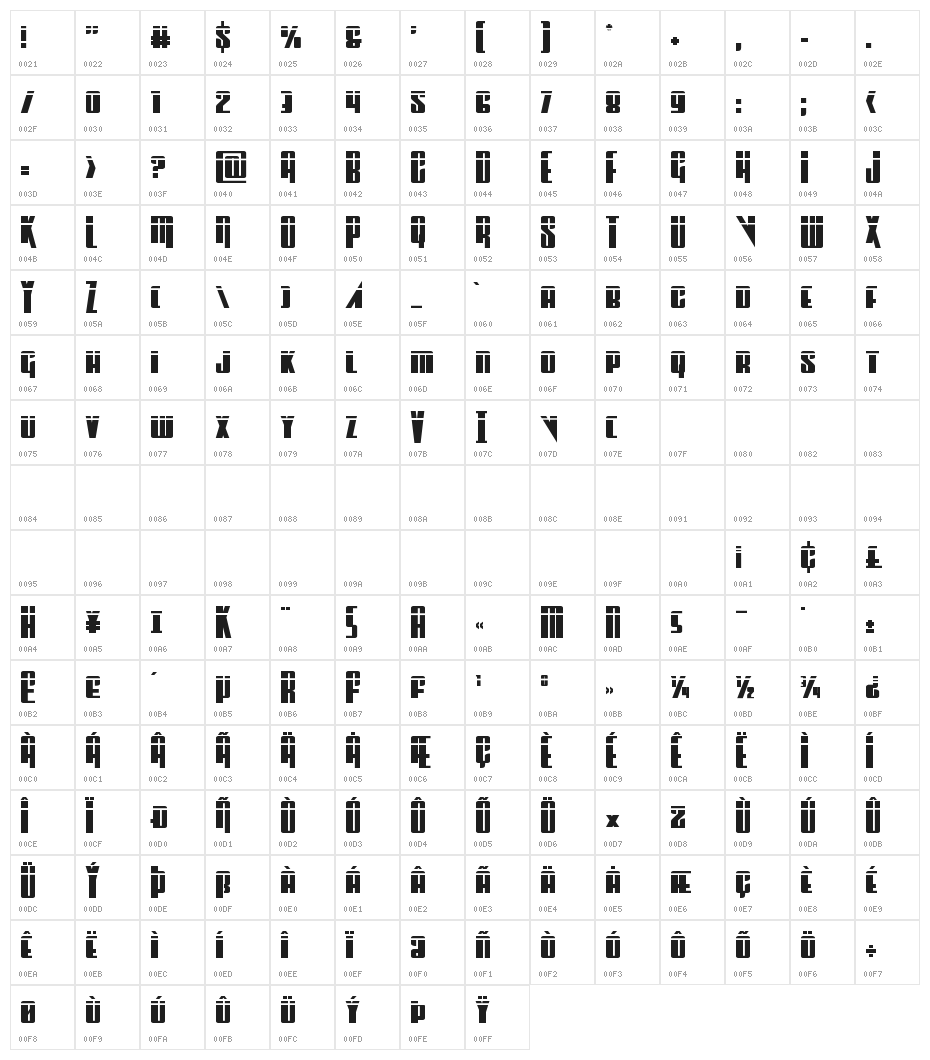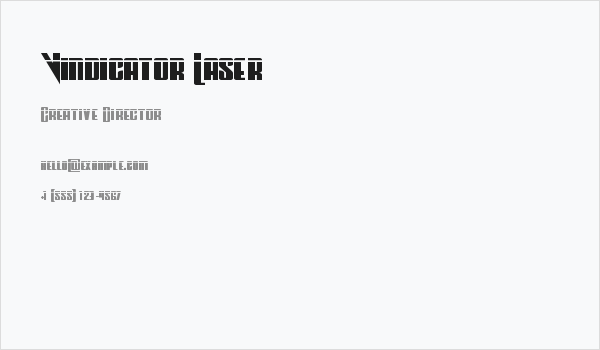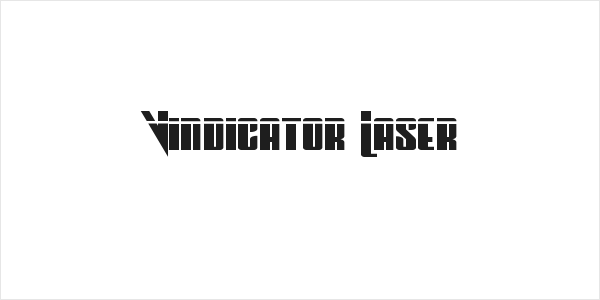
Vindicator Laser Font
Vindicator Laser Description
This font features a bold, futuristic design with sharp angles and a distinct geometric style. The uppercase letters are particularly striking, with a blocky appearance that suggests strength and modernity. The lowercase letters maintain the same boldness, ensuring consistency across the typeface. Numbers and special characters are designed to match the overall aesthetic, making this font ideal for impactful headlines or branding that requires a strong visual presence. The font's design is reminiscent of sci-fi themes, with a unique cut-out effect that adds to its dynamic appearance.
| Proposed Projects | Ideal for sci-fi movie posters, video game titles, tech branding, and futuristic-themed designs. |